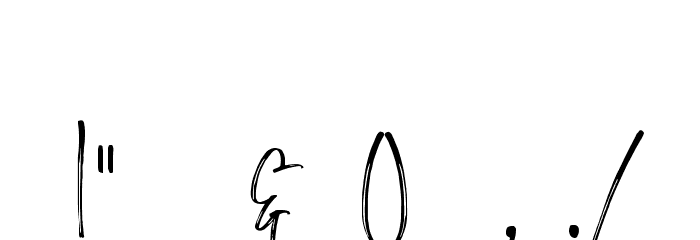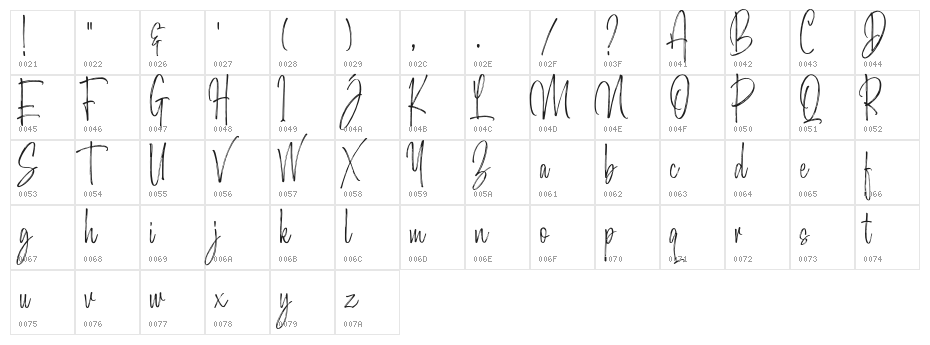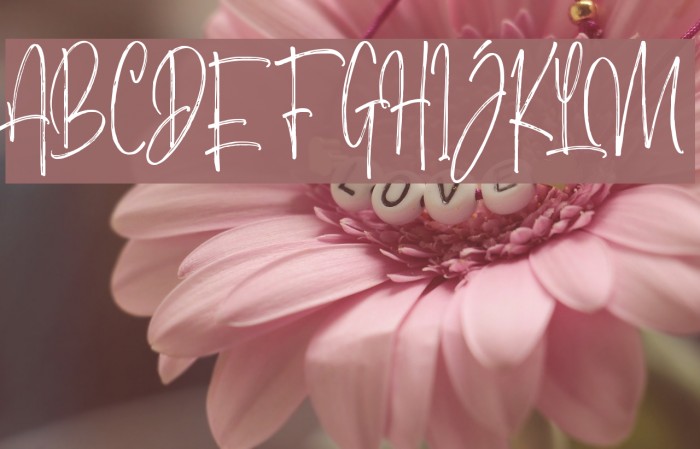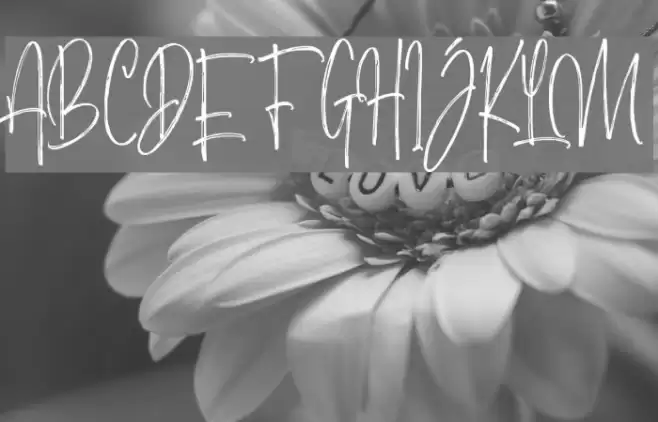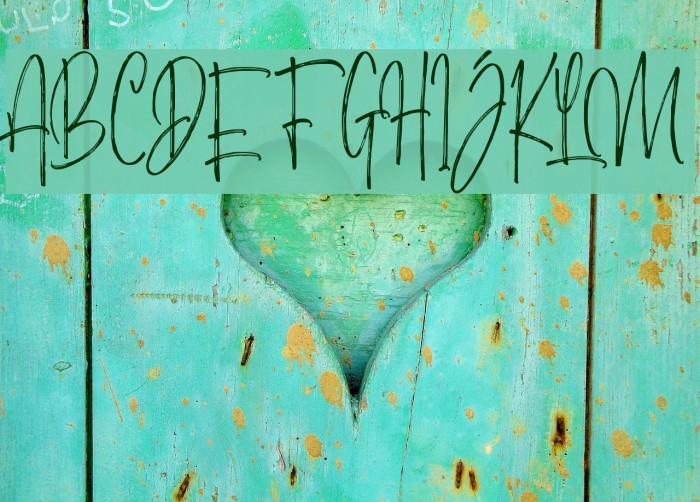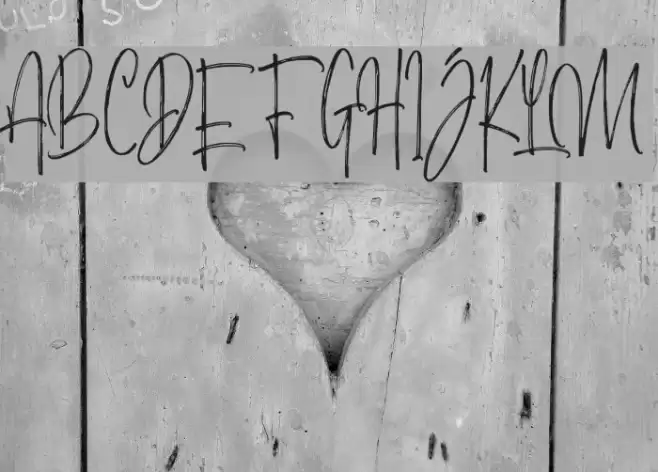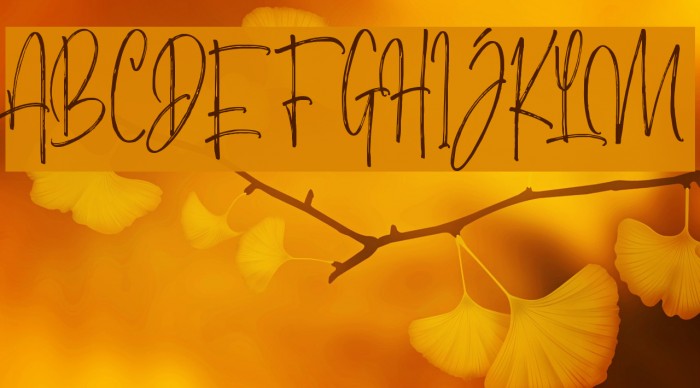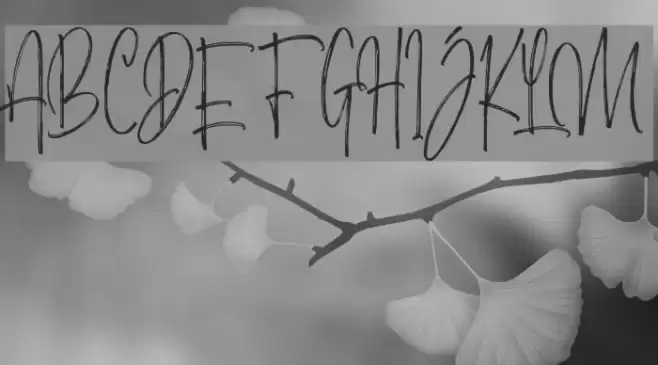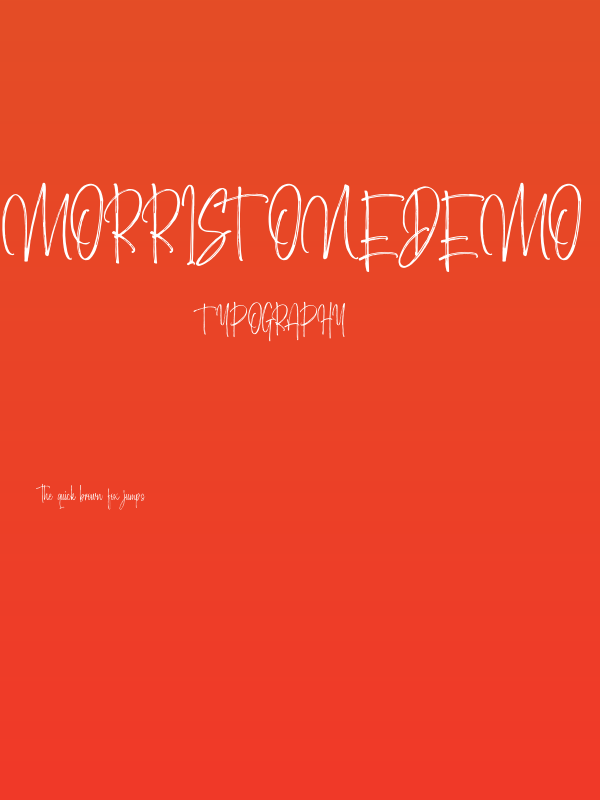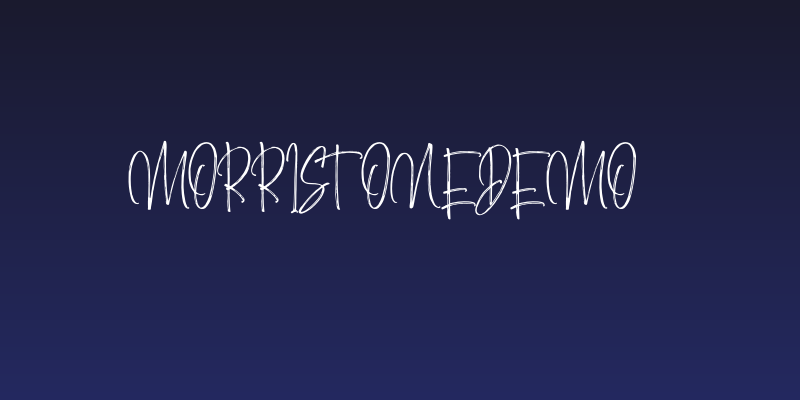
MorristoneDemo Font
MorristoneDemo Description
This font features an elegant, handwritten style with a modern twist. The uppercase letters are tall and narrow, with a slight slant that adds a dynamic feel. The lowercase letters are more fluid, with graceful loops and curves that enhance its handwritten appearance. The strokes vary in thickness, providing a medium contrast that adds depth and interest. The overall design is sophisticated and stylish, making it suitable for a variety of creative projects. The special characters maintain the same elegant style, ensuring consistency throughout.
| Proposed Projects | Ideal for wedding invitations, branding, social media graphics, and elegant stationery. |